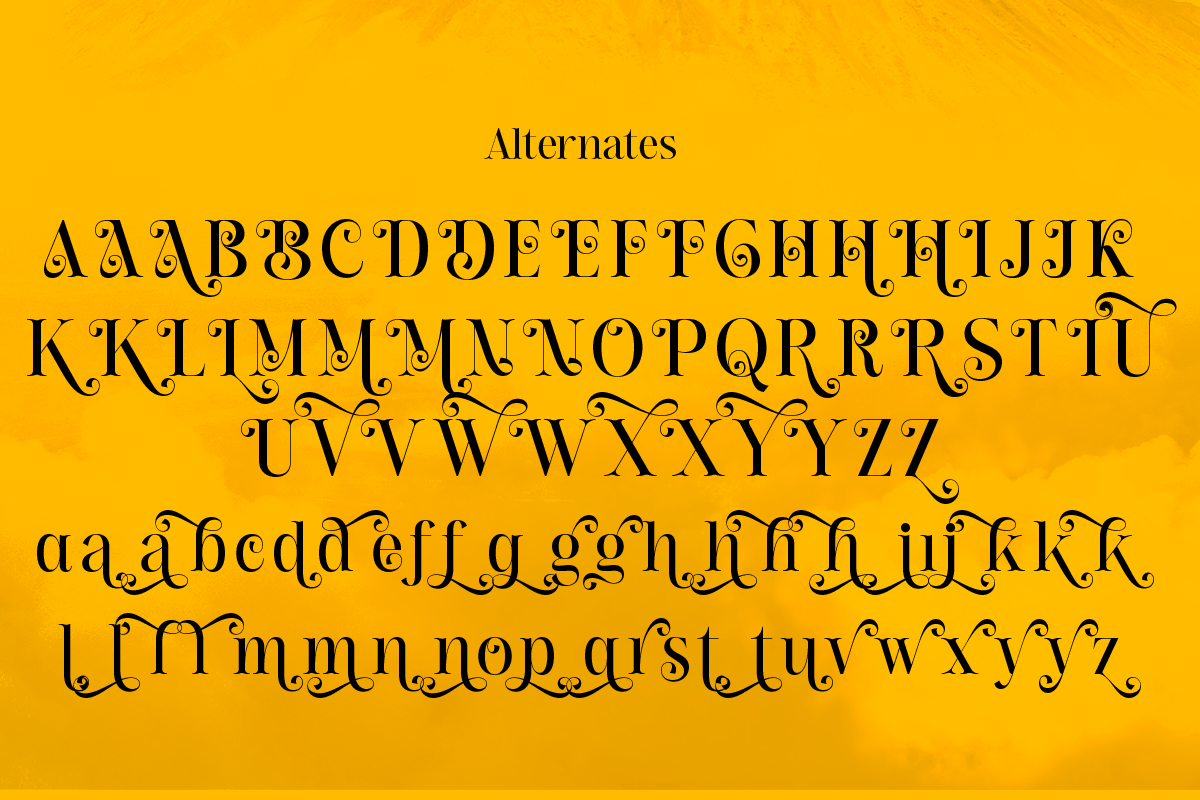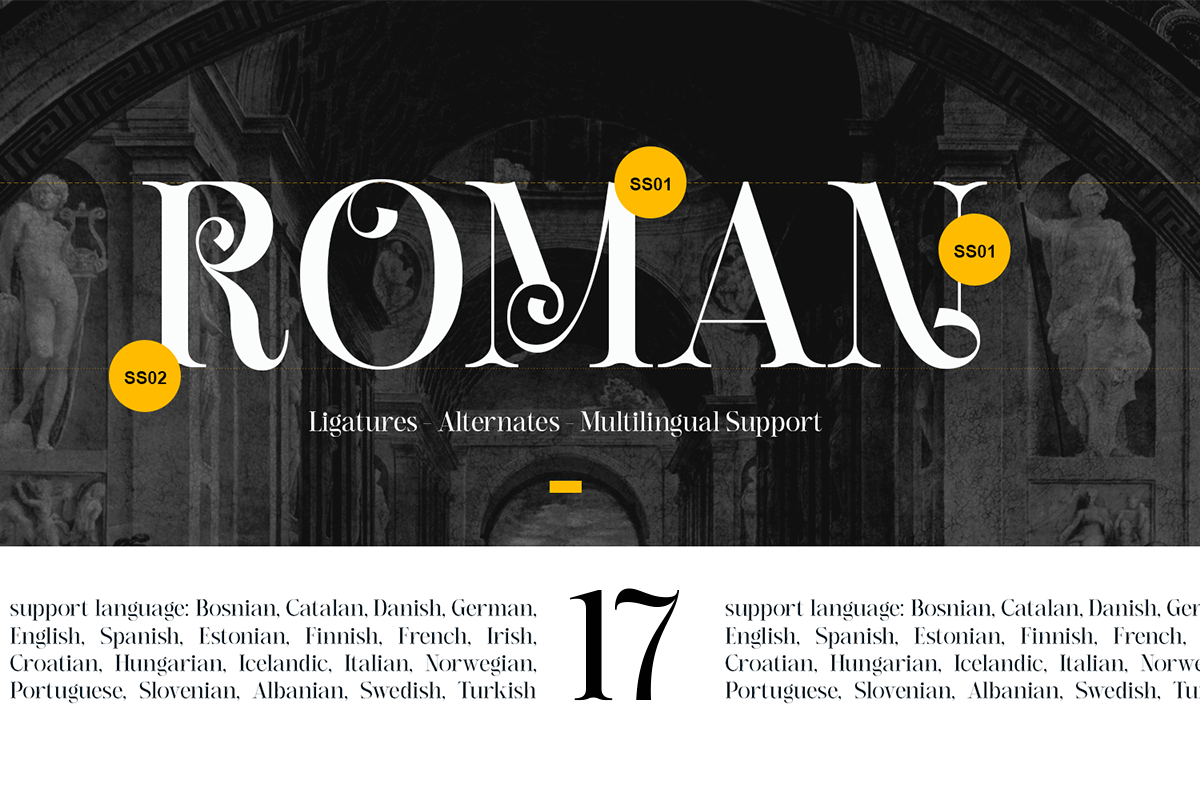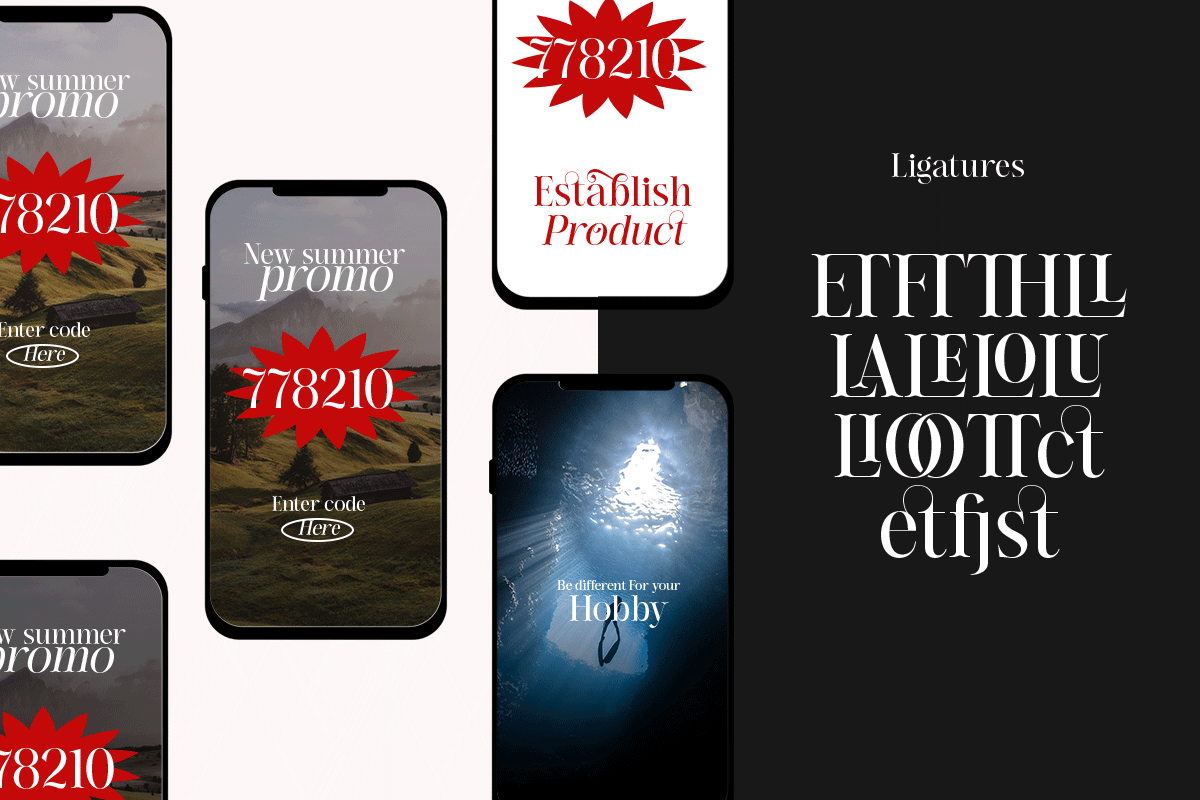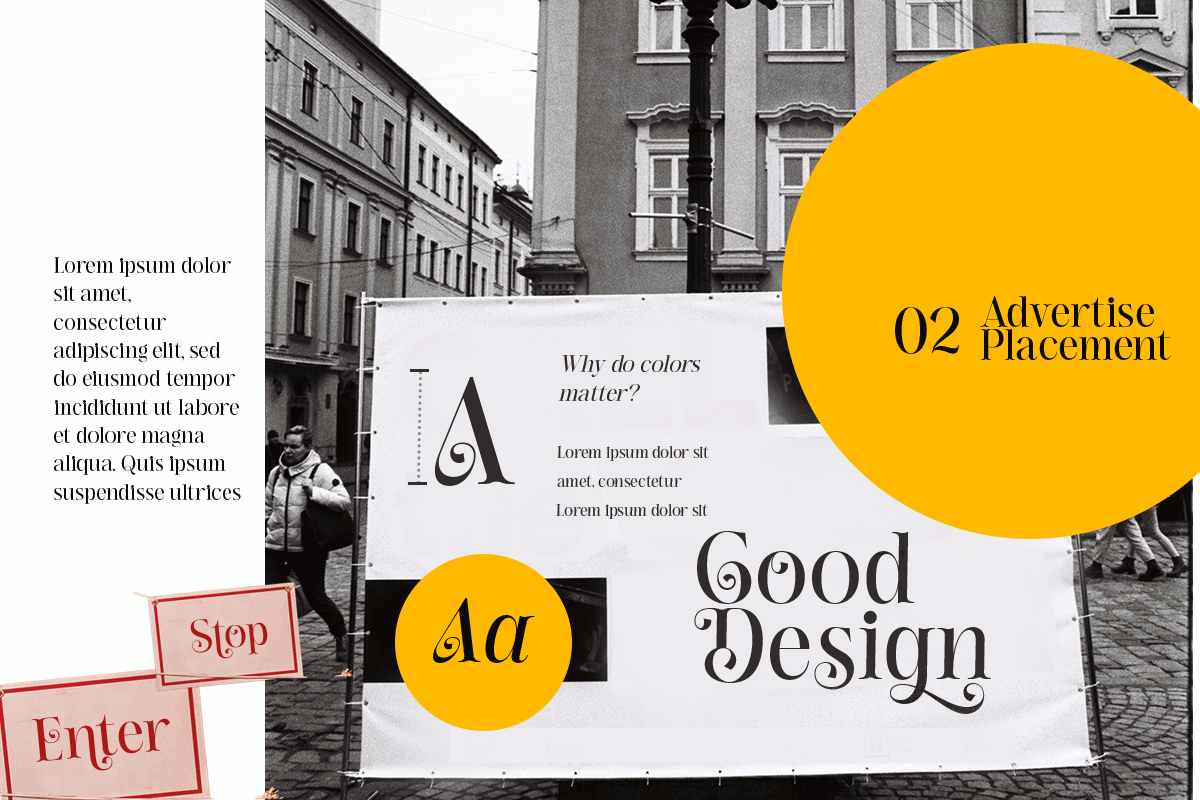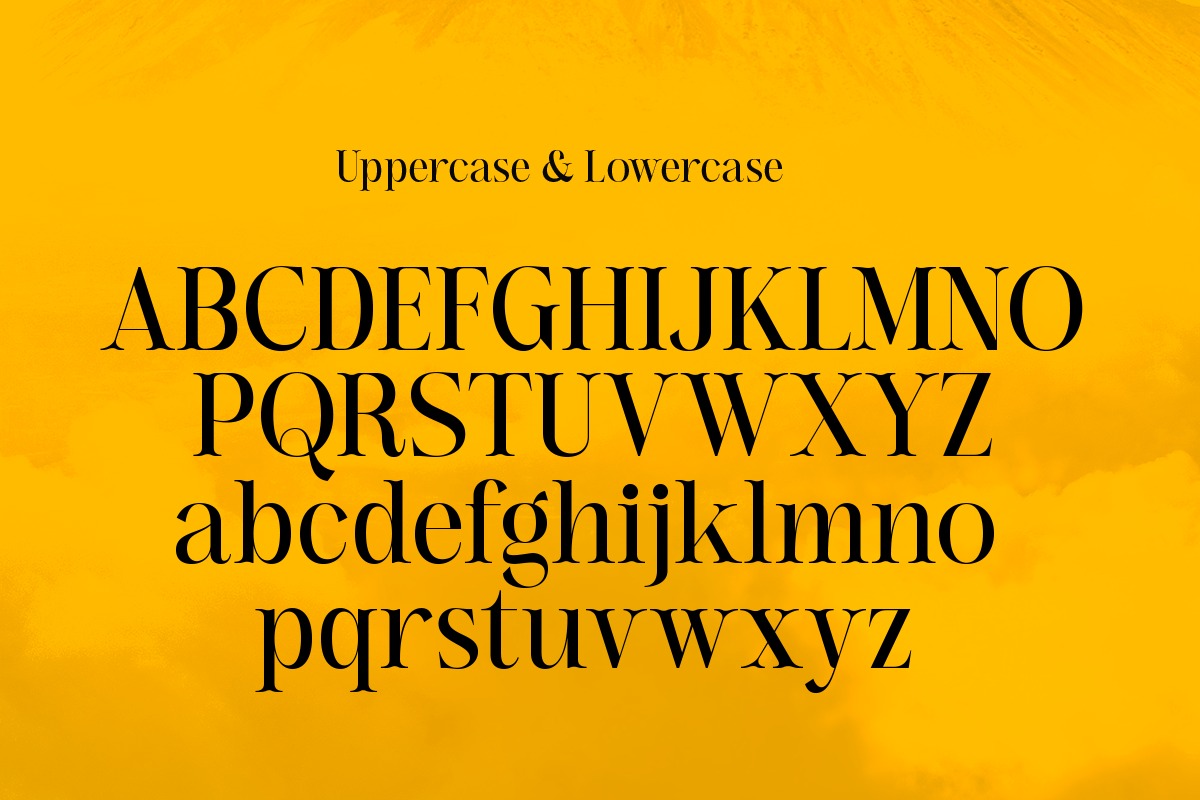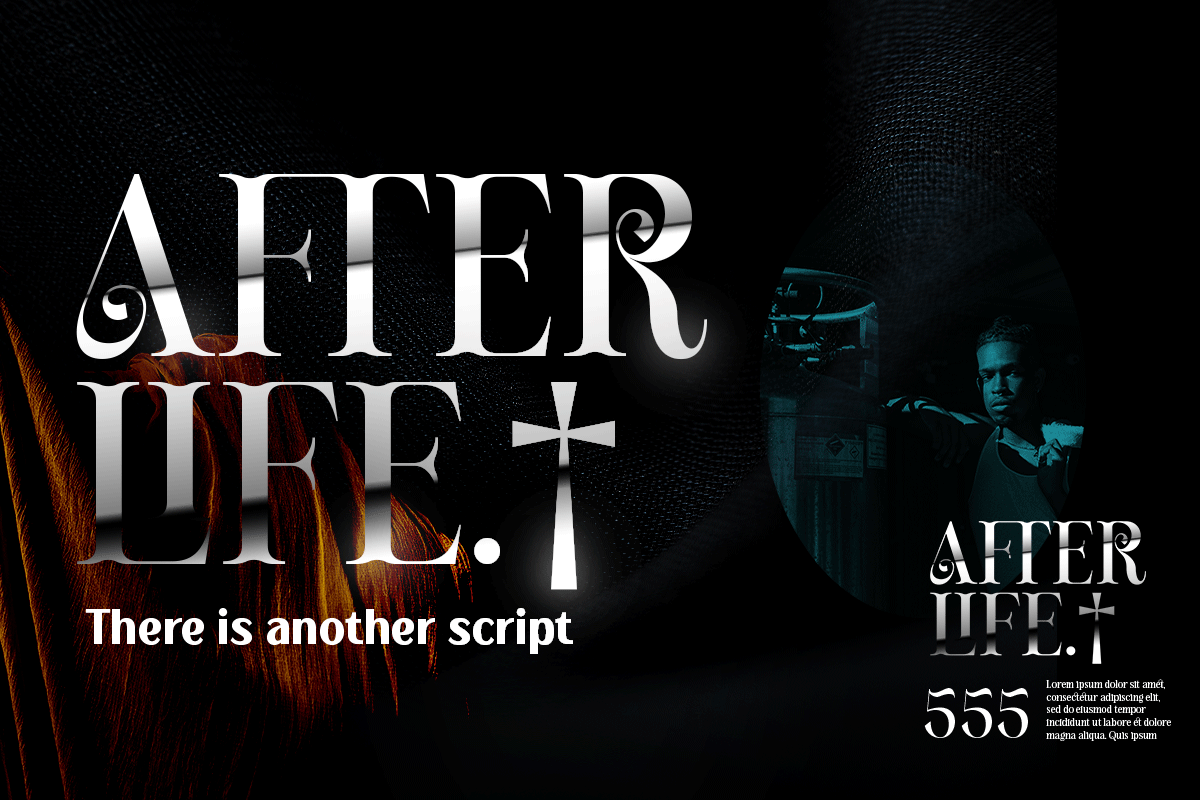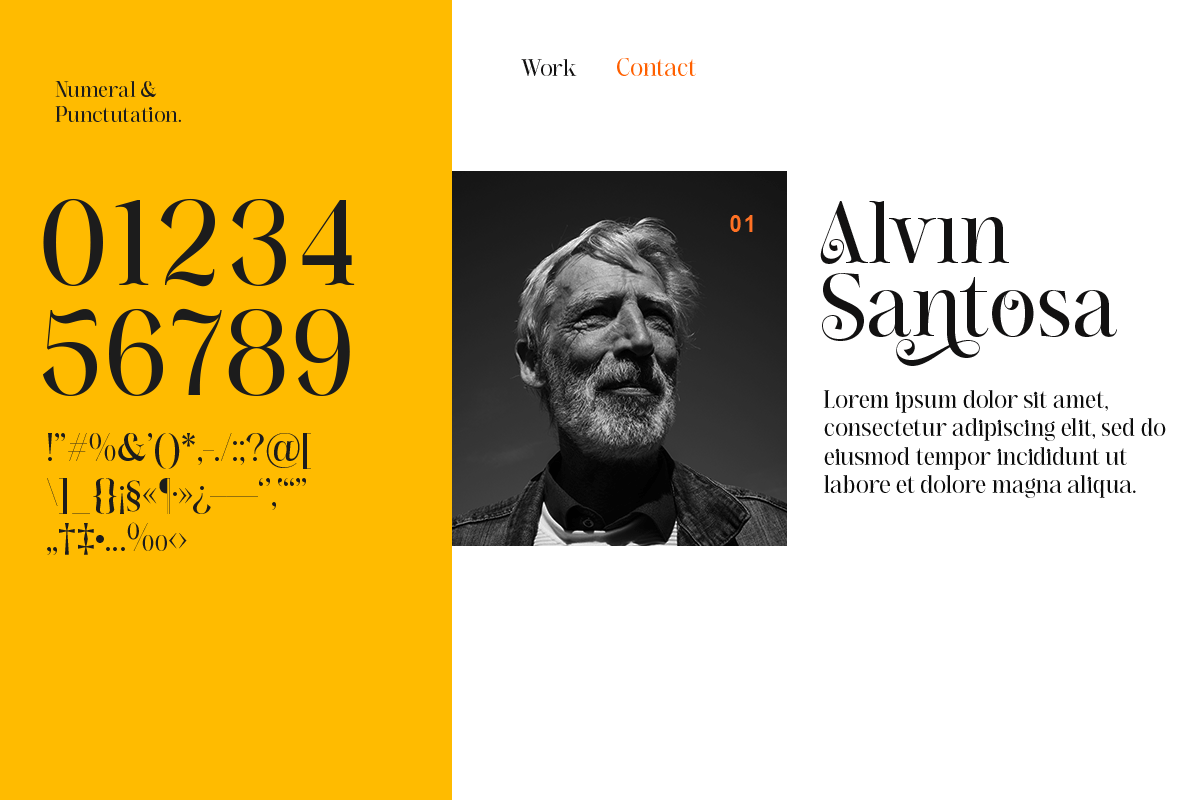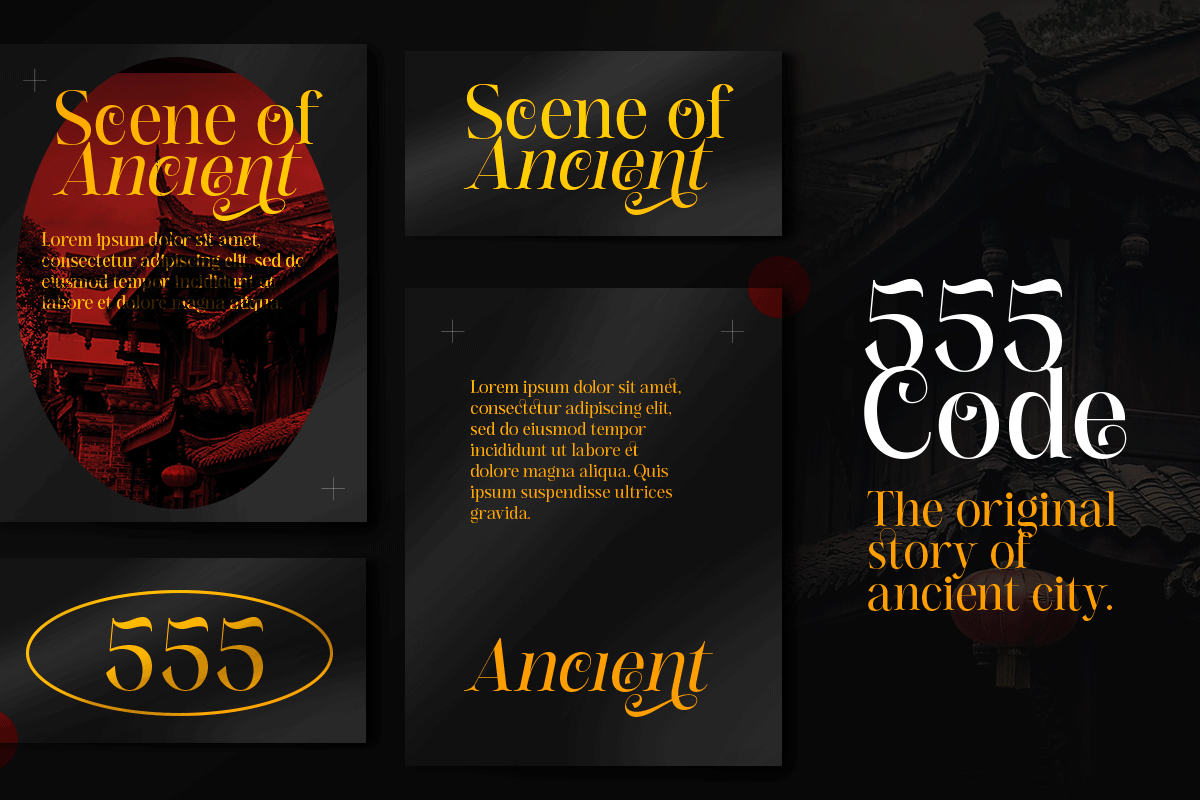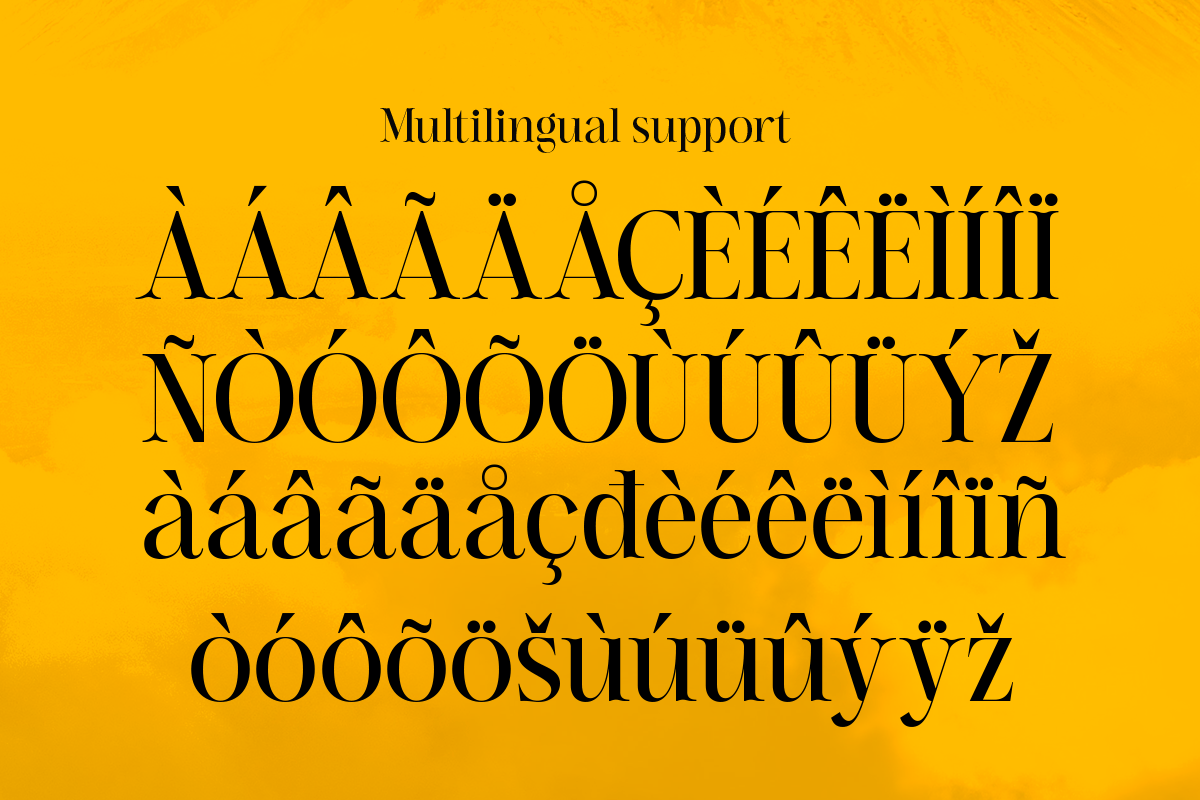
Jarekuh
Jarekuh is a neat decorative serif font. This font will look amazing in any context, whether it's used on a busy background or as a standalone title! Jarekuh has many alternative glyphs that can be combined to get an attractive and prominent impression. Of course this font is PUA encoded, which means you can access all of the glyphs and swashes with ease!